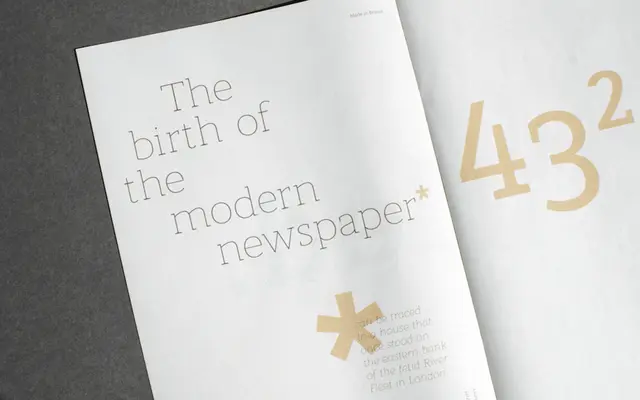
Modum
A low-contrast contemporary serif in eight weights with true italics, awarded a Merit at Hiii Typography 2015 and designed for editorial and text-heavy digital work.
With over 900 characters per style and an extensive OpenType feature set, Modum covers twelve numeral variations, small caps, and alternates for a, e, g and y. Its low-contrast letterforms balance smooth radius details with considered angles, making it well suited to newspapers, editorials and hierarchical book layouts. Version 2.0 brought refined weight distribution and expanded typographic flexibility across all sixteen styles.
A low-contrast serif with smooth radius details and carefully drawn angles, positioning it between transitional and contemporary serif classifications, optimised for digital and editorial applications.